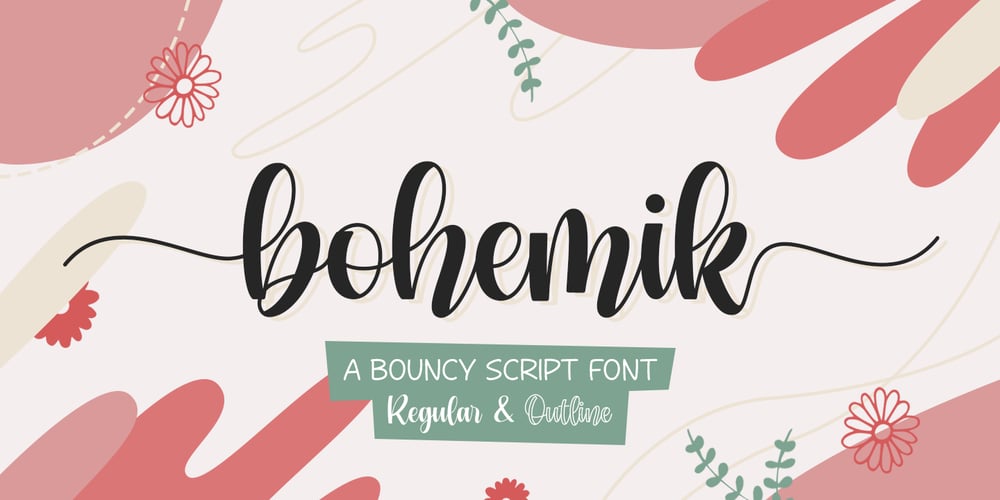
Bohemik Font Family was designed by Dwi Ahidian and published by Lemonthe. Bohemik contains 2 styles and family package options. Bohemik is a delightful bouncy script font that adds a playful touch to any design. With its charming curves and energetic strokes, it brings joy and liveliness to your projects. Comes with regular and outline styles. Perfect for logos, quotes, social media posts, invitations, and creative branding materials, this font infuses your work with a cheerful and dynamic spirit.